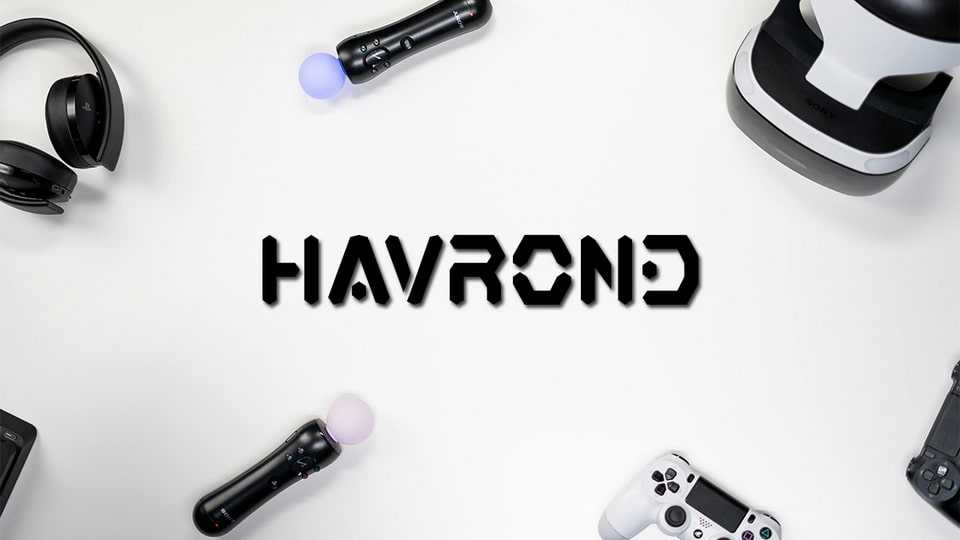
Download Havrond font, a contemporary display typeface tailored to breathe life into innovative gaming projects and transform your creative vision into reality.